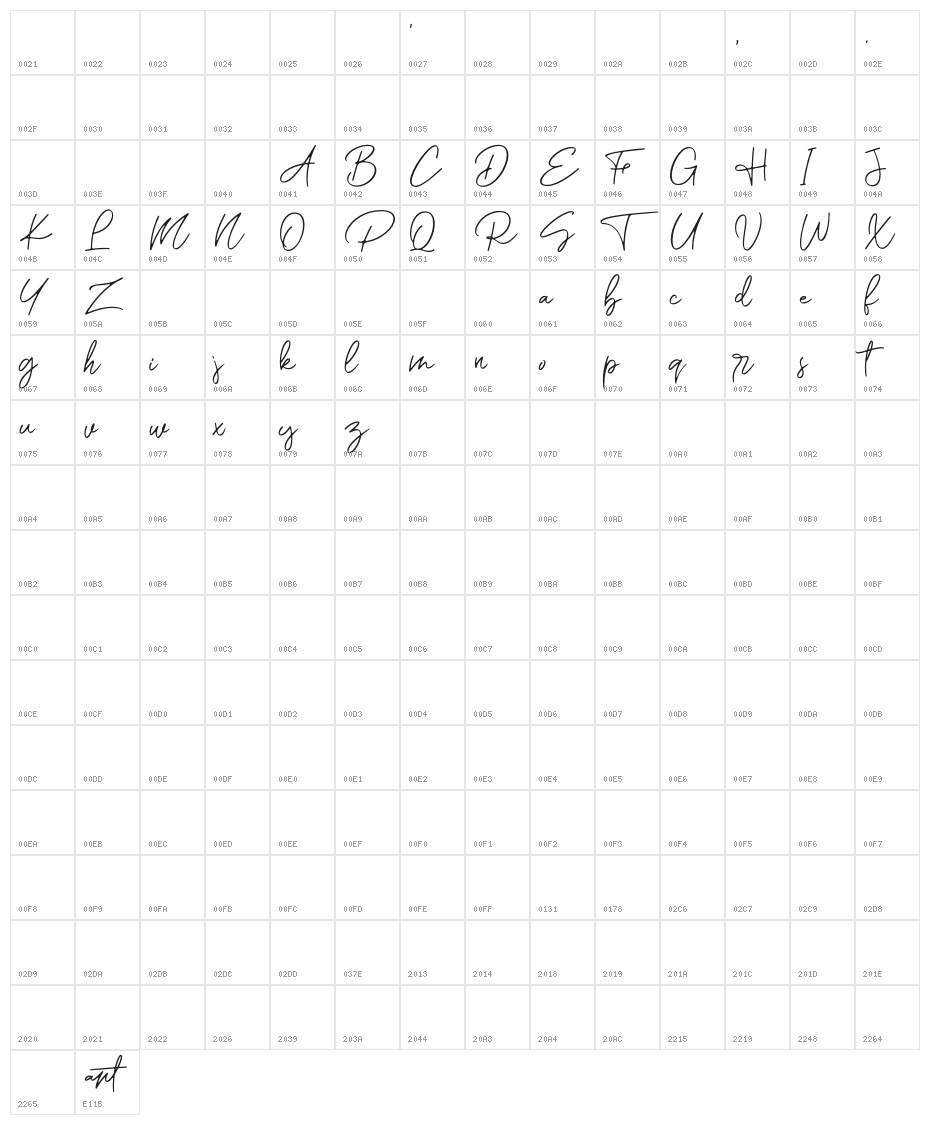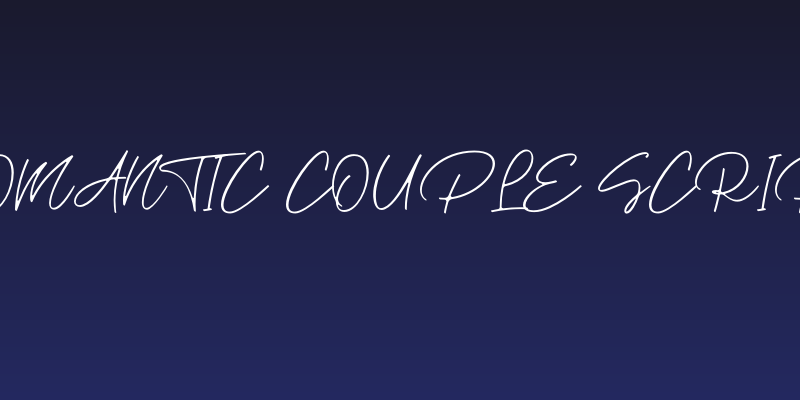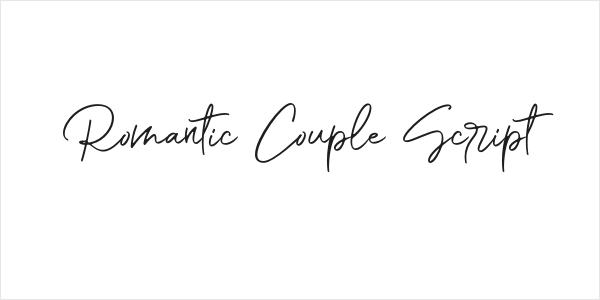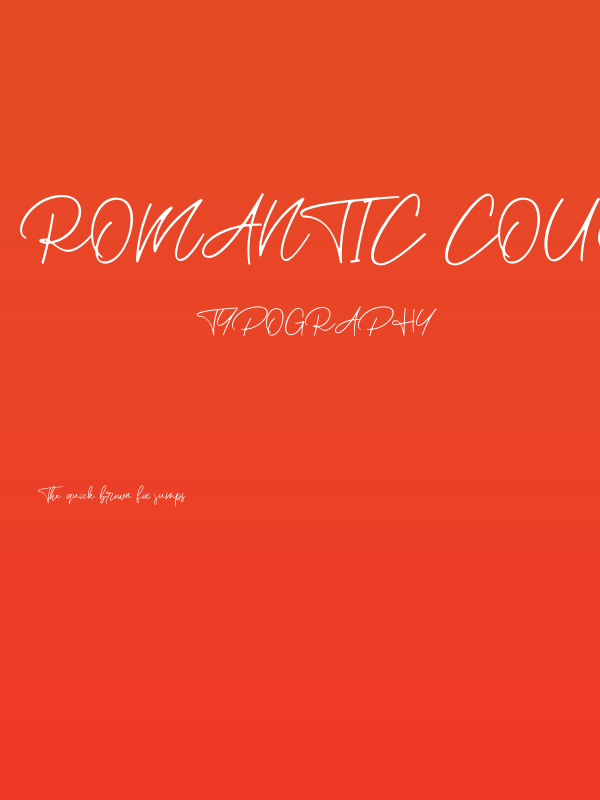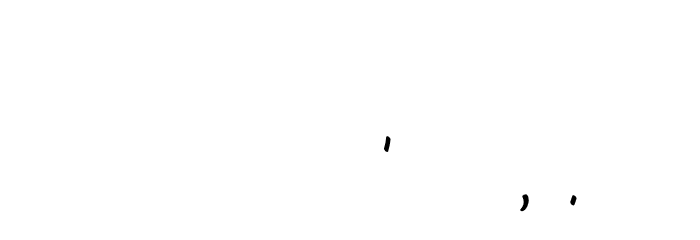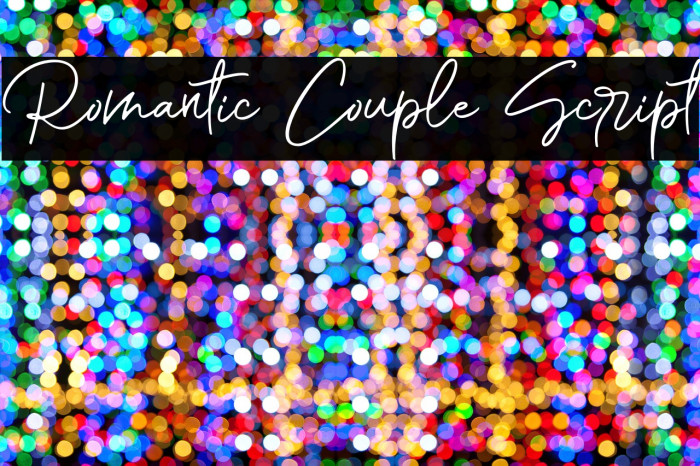
Romantic Couple Script Font
Romantic Couple Script Description
This script font exudes a romantic and elegant charm, characterized by its fluid, cursive strokes that mimic the natural flow of handwriting. The uppercase letters are gracefully elongated with smooth curves, while the lowercase letters maintain a consistent rhythm, adding a touch of sophistication. The font features a delicate balance between thick and thin lines, enhancing its legibility and aesthetic appeal. Its overall style is both modern and timeless, making it versatile for various design applications. The font's playful yet refined nature makes it ideal for projects that require a personal touch.
| Overall Style | Romantic, Elegant |
| Use Case | Headlines, Invitations, Personal projects |
| Proposed Projects | Wedding invitations, greeting cards, branding for luxury products, personal stationery, and romantic-themed designs. |